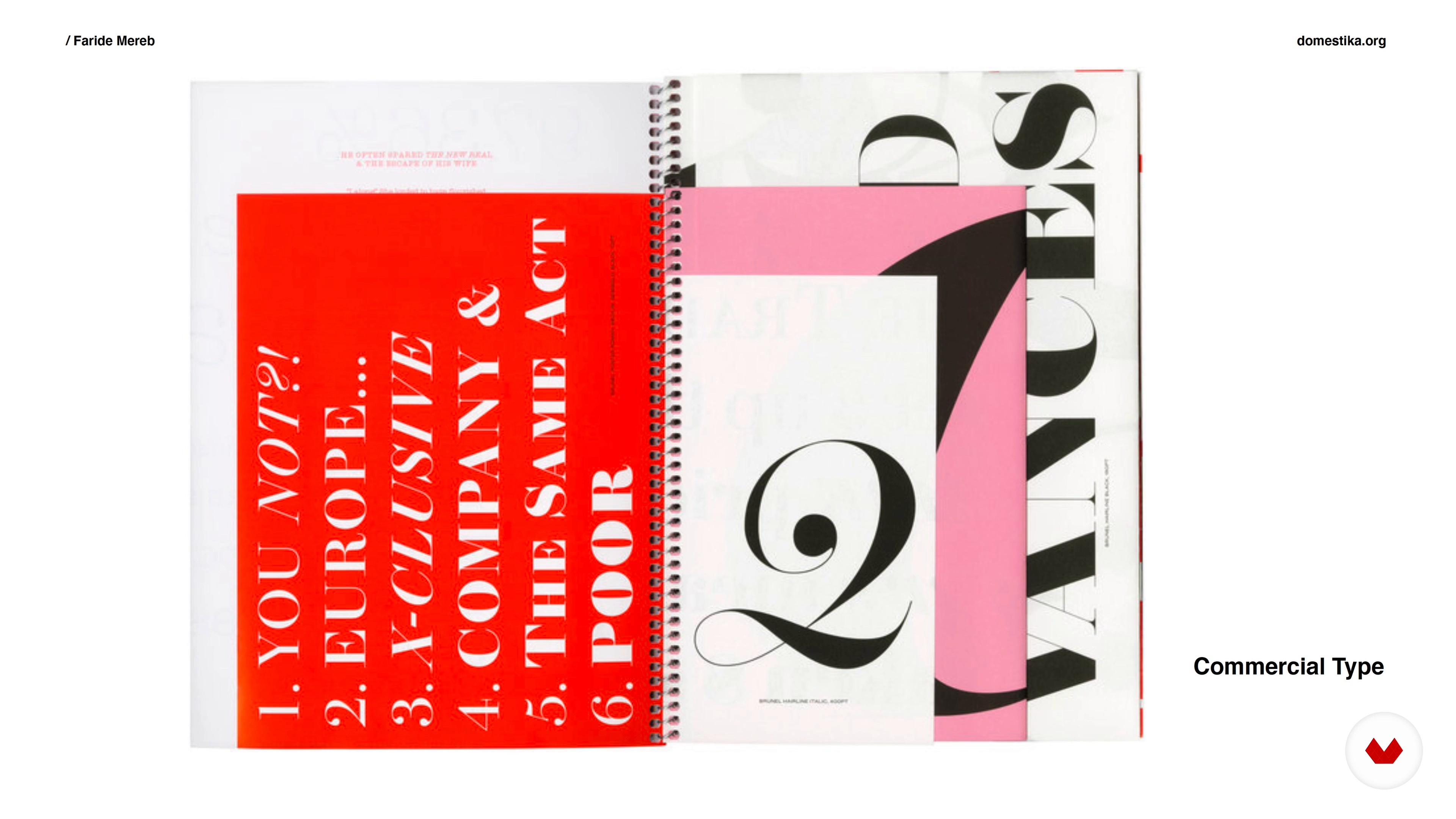
Fonts, Fonts and Fonts!
About the video: Fonts, Fonts and Fonts!
“In this lesson, we will find the shape for our content. I'll show you what you need to know to choose a font that works best for your project. Words have meaning, but so do letters.”
“Fonts, Fonts and Fonts! Fonts give a voice to our content. They represent all of our information. Now, I'll tell you what you need to know to choose the best ones for your project. Let's get started. Fonts fonts fonts Our best friends will be the specimen sheets from the fonts we wish to contemplate as part of our concept. These are some examples by Omnibus-Type. Specimen sheets are important because we get to see how the letters interact with each size, background, or language. These examples are from a printed specimen spread by Commercial Type. We can also get to see how variation works ...”